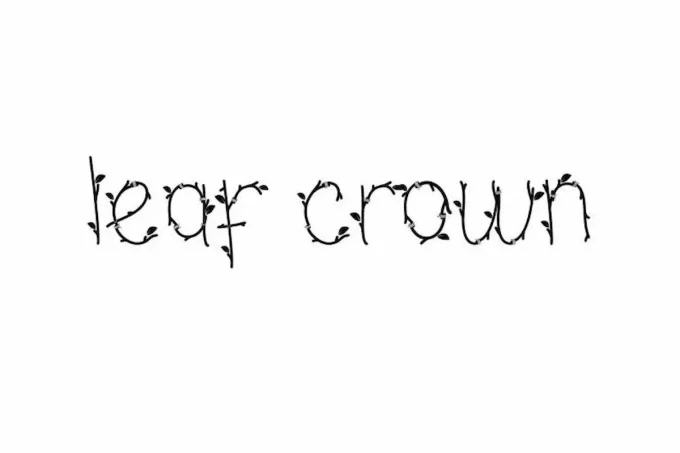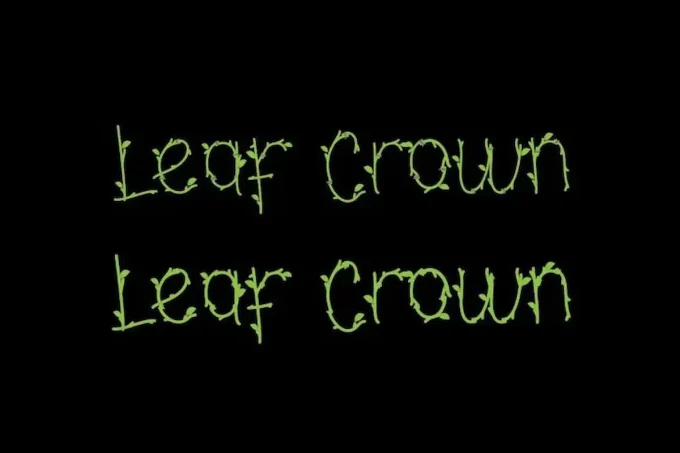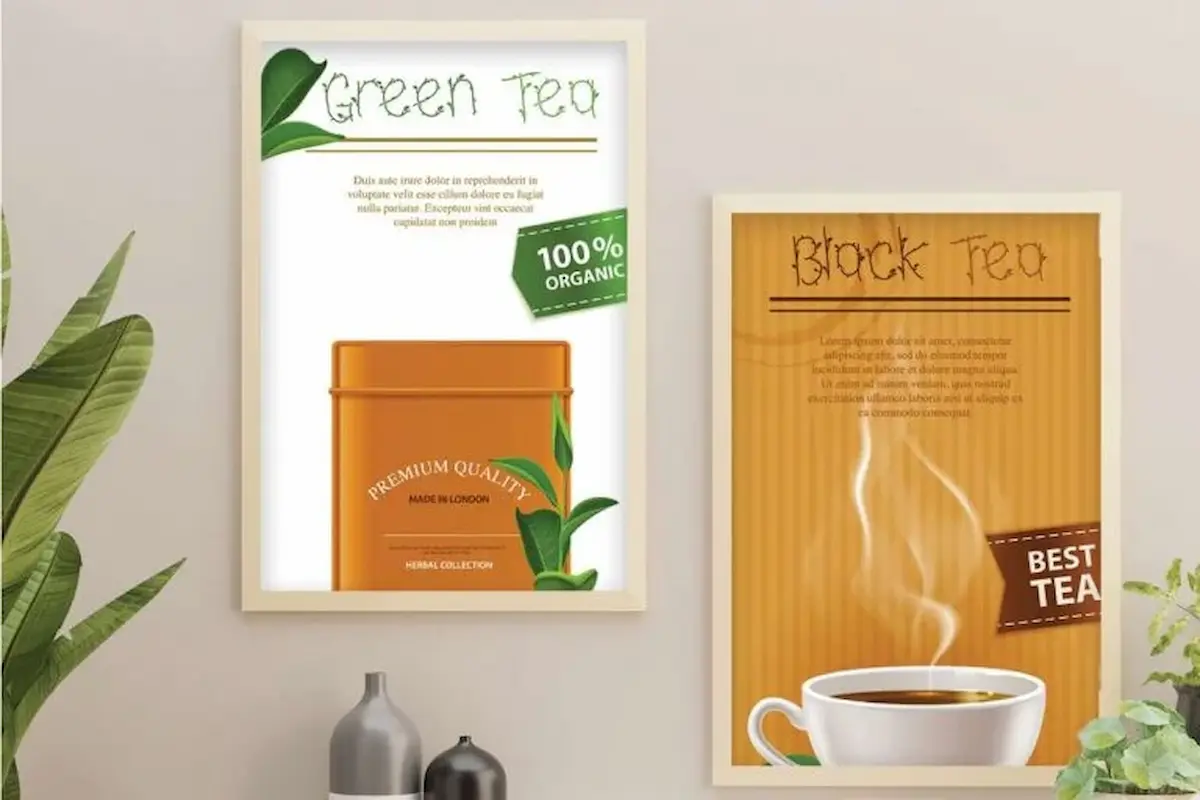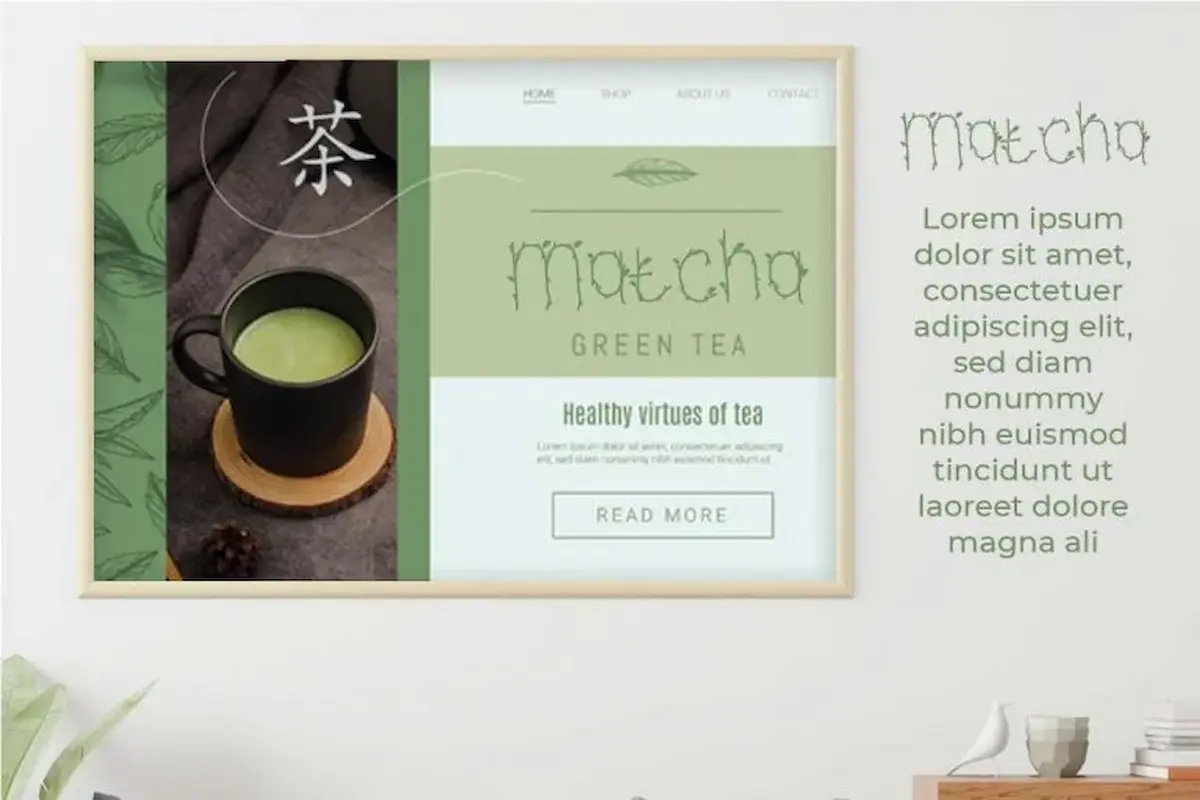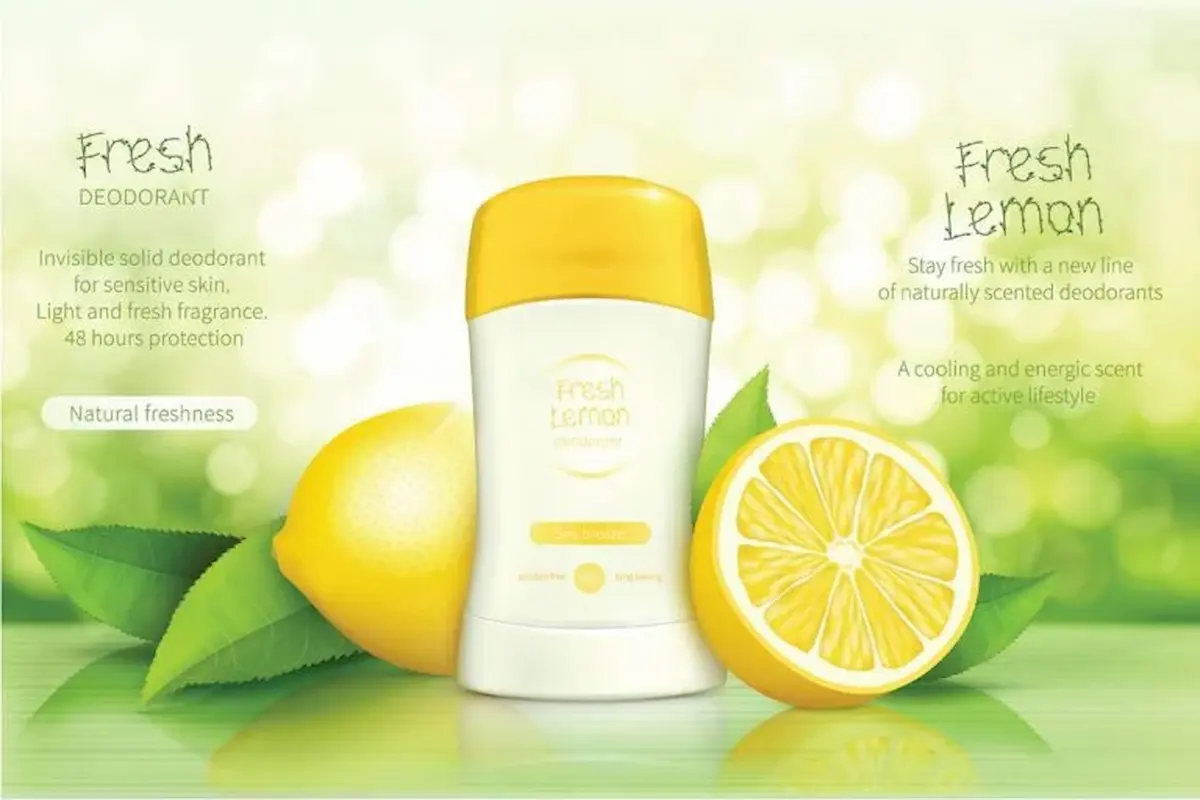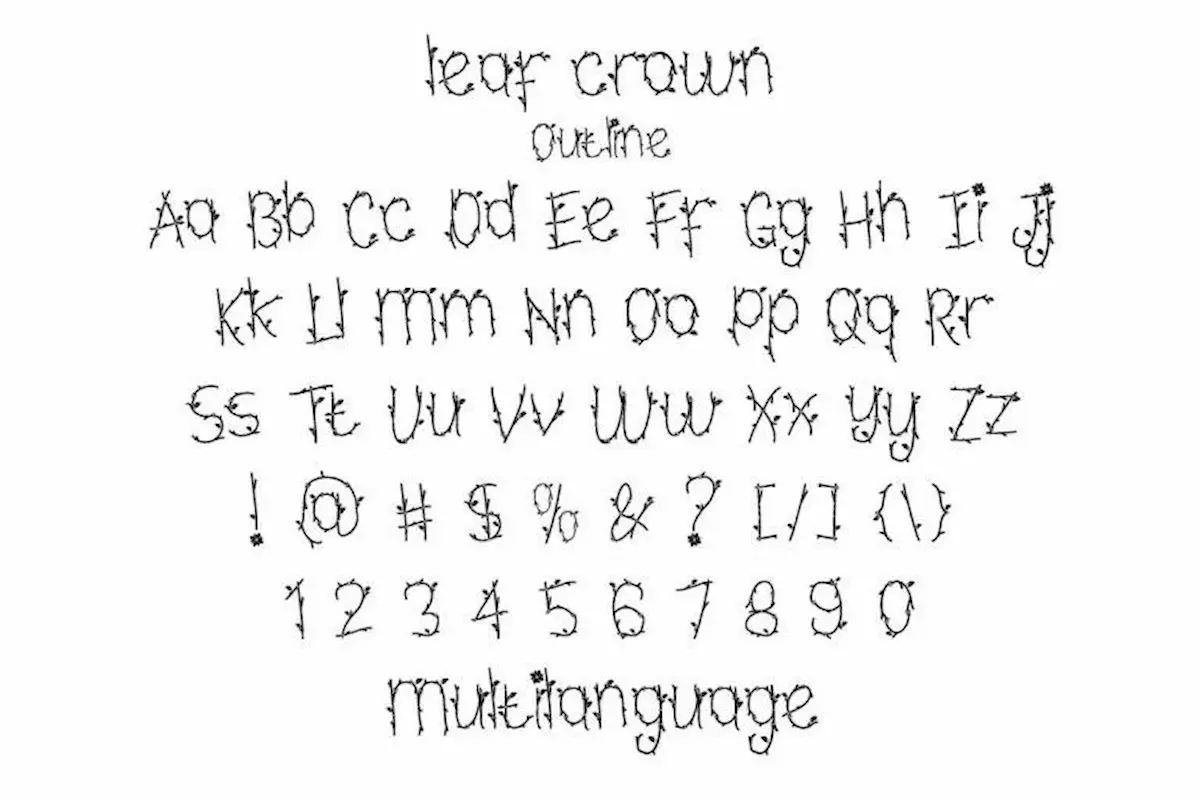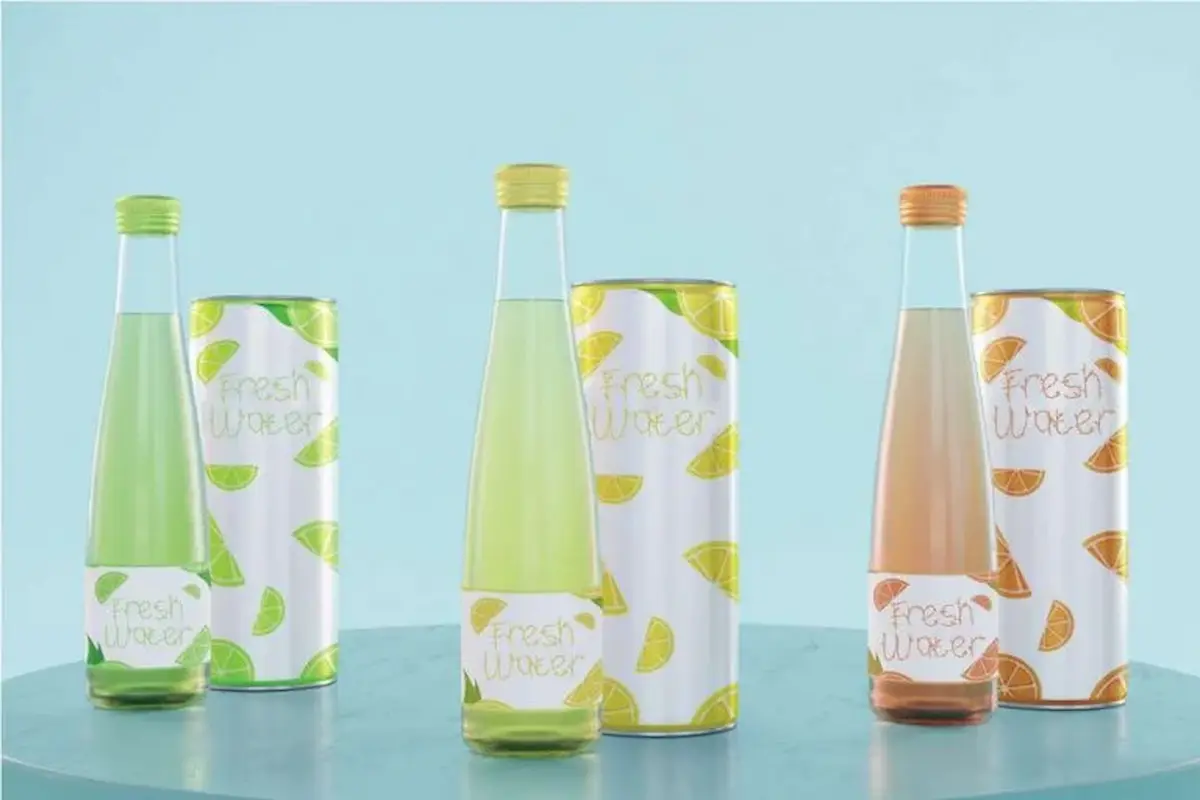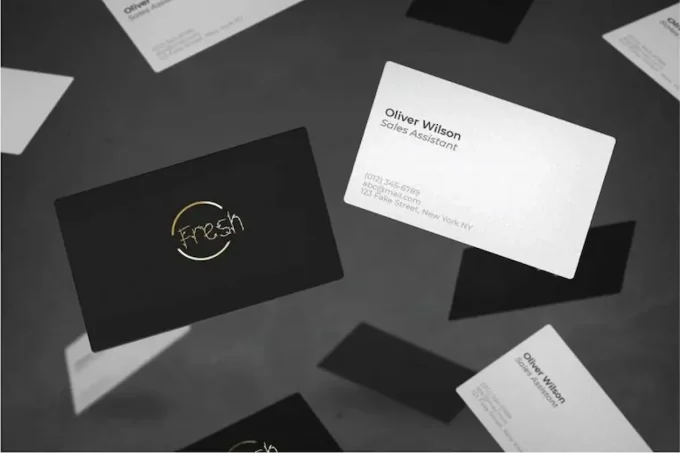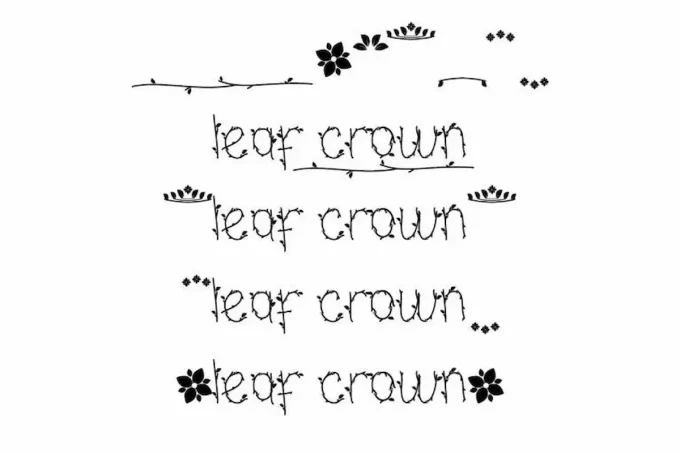
Leaf Crown Font is a decorative display font inspired from garden party, designed exclusively by NihStudio, made in 2021. Leaf Crown Font will great for many industries : magazine, fashion, cosmetic, wedding, florist, or vintage projects.
Handcrafted here in our Studio , Indonesia. Leaf Crown Modern Font is great for any projects (require extended license) including : branding, logo, stationery, business card, signage, flyer, brochure etc. Leaf Crown Font comes with unique exclusive characters, inspired from the party garden. Leaf Crown will be great for many business and industries including cosmetic, beauty, education, wedding, finance, fashion, houseware etc